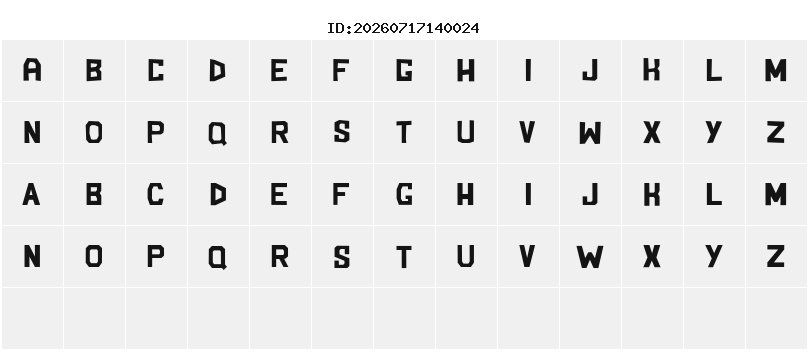
• Font Name: Blockem Sockem
• Full Font Name: BlockemSockem
• Designer: Jason L. Arthur
About Blockem Sockem.otf
Blockem Sockem.otf is a modern, elegant sans-serif font designed for ultimate readability and visual harmony. Perfect for branding, headlines, web design, and print materials.